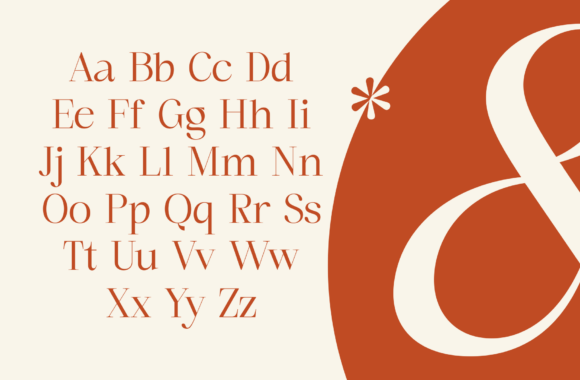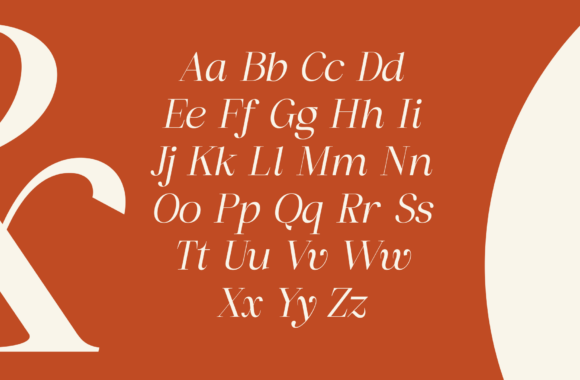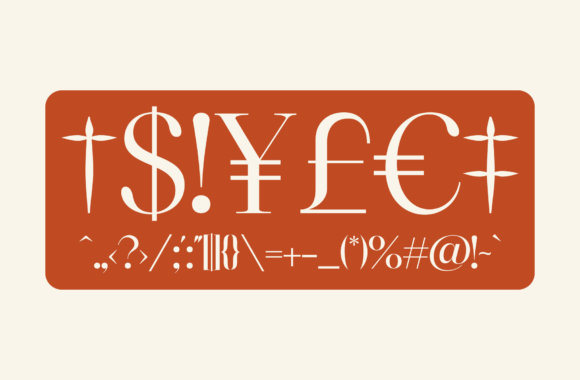
Introduction to Oulza Font
Have you ever been working on a creative project, pouring your heart and soul into every detail, only to be stuck on the perfect font to match your vision? That’s where the Oulza Font comes in – a game-changer for designers seeking a high-quality, elegant serif font that exudes sophistication and style.
Whether you’re working on a luxurious presentation, high-end branding, or editorial designs, the Oulza Font is a valuable resource that will elevate your design to the next level. Its sharp, refined edges and balanced proportions create a timeless, classic look that’s perfect for making a statement. And with its two distinct styles – Regular and Italic – you’ll have the flexibility to choose the perfect fit for your project.
What sets the Oulza Font apart is its unique Italic style, featuring carefully crafted ligatures that add an extra touch of elegance. These ligatures provide a fluid, graceful connection between letters, making your designs look like a work of art.
Key Features of Oulza Font
- High-quality design resource ideal for creative projects, offering a unique and modern look.
- Supports various languages, making it a versatile choice for multilingual creative projects.
- Perfect for designers seeking a stylish and modern font to elevate their creative project, whether it’s a logo, typography, or branding.
Honest Review: Oulza Font
I recently came across the Oulza Font while searching for a design resource for my latest creative project. I was impressed by its unique style and decided to give it a try.
Here are some things that work well with the Oulza Font: ✨
- High-quality design: The font has a professional look and feel, making it suitable for a wide range of creative projects.
However, I did encounter some limitations with the Oulza Font: ⚠️
- Limited font weights: The font only comes in a few weights, which may not be sufficient for designers who need a wide range of options.
- Not suitable for small text: Due to its unique style, the font may not be the best choice for small text, as it can be difficult to read.
Overall, I’m impressed with the Oulza Font and would definitely consider using it for future creative projects. While it has some limitations, its high-quality design and free download make it a great resource for designers.
Common Use Cases for Oulza Font
The Oulza Font is perfect for a variety of creative projects, including social media graphics, presentations, business cards, and logos. Its high-quality design and transparent background make it easy to use in a variety of design software and applications.